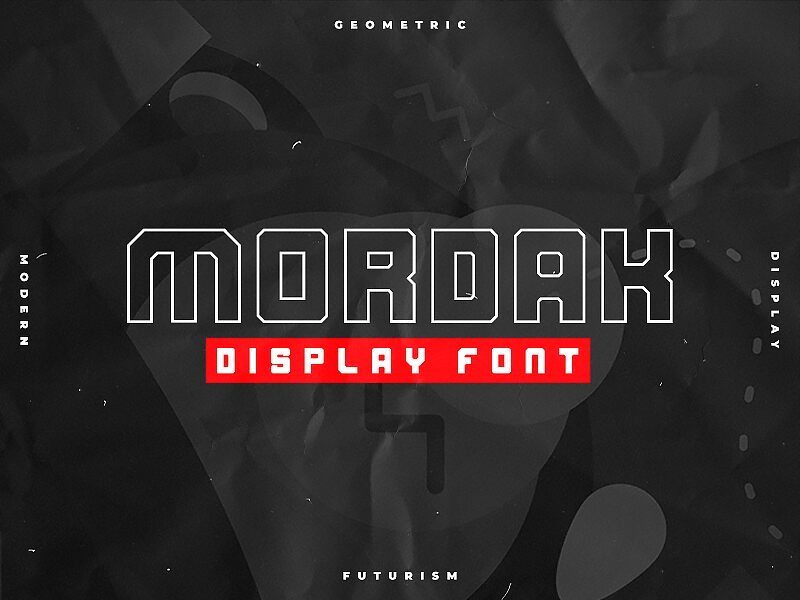
Mordak is a bold, techno-inspired display font that commands immediate attention. Designed by Brian Hermelijn, its sharp, geometric letterforms exude a striking industrial aesthetic, with angular terminals and a monumental presence. Mordak's robust construction and unapologetic style make it an ideal choice for logos, headlines, and impactful typography in contexts ranging from high-tech branding to avant-garde editorial design.
Its versatility and visual impact ensure Mordak leaves a lasting impression, seamlessly blending form and function to create a truly distinctive typographic experience.